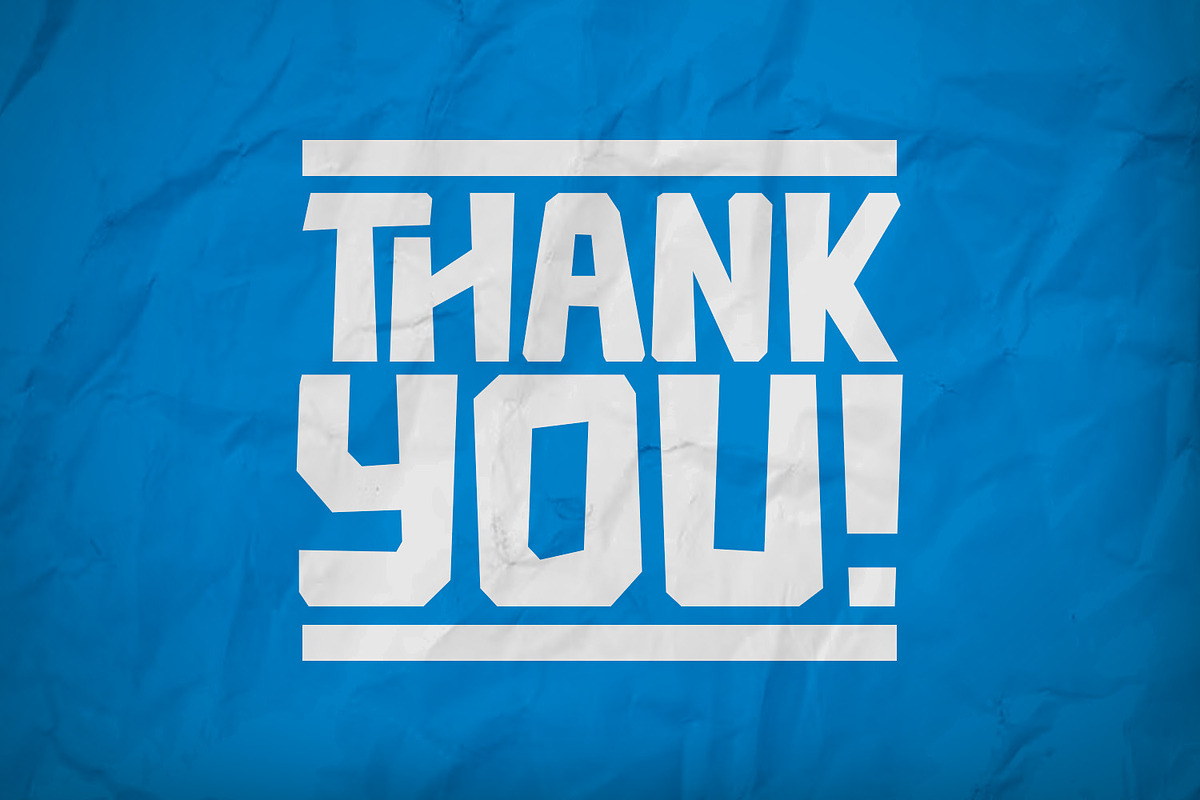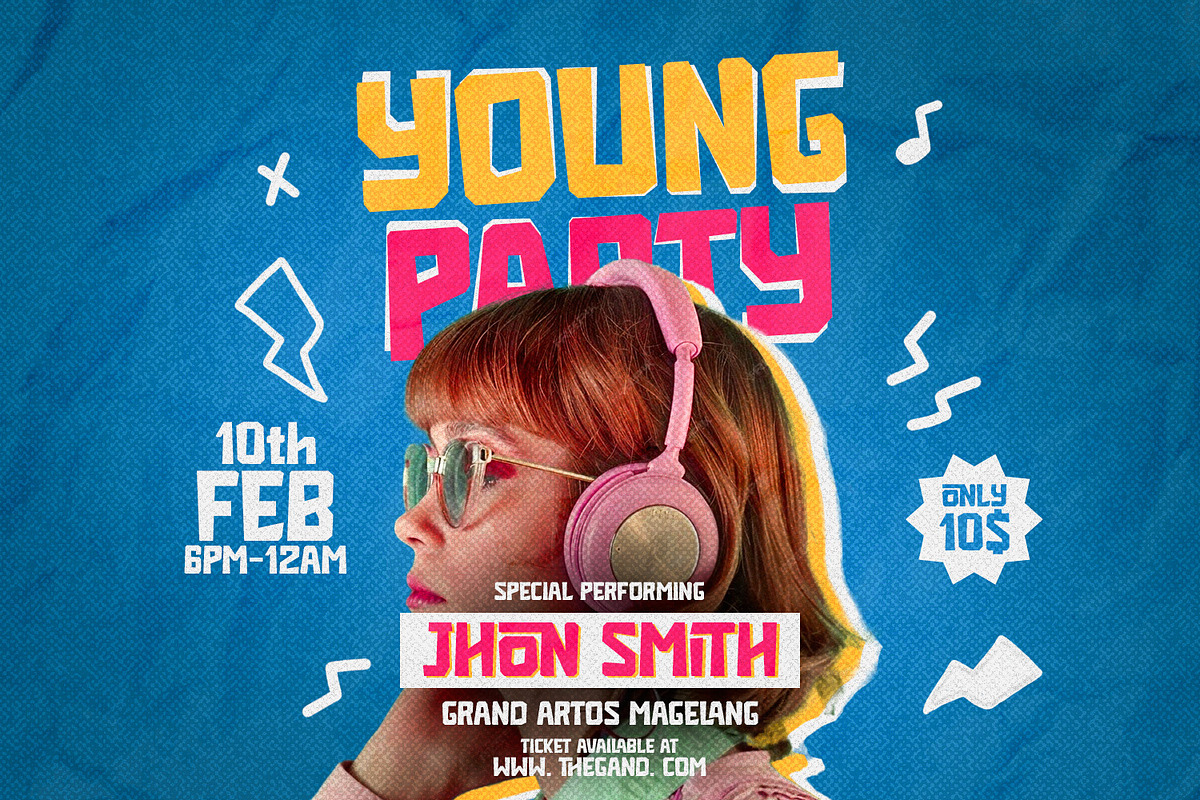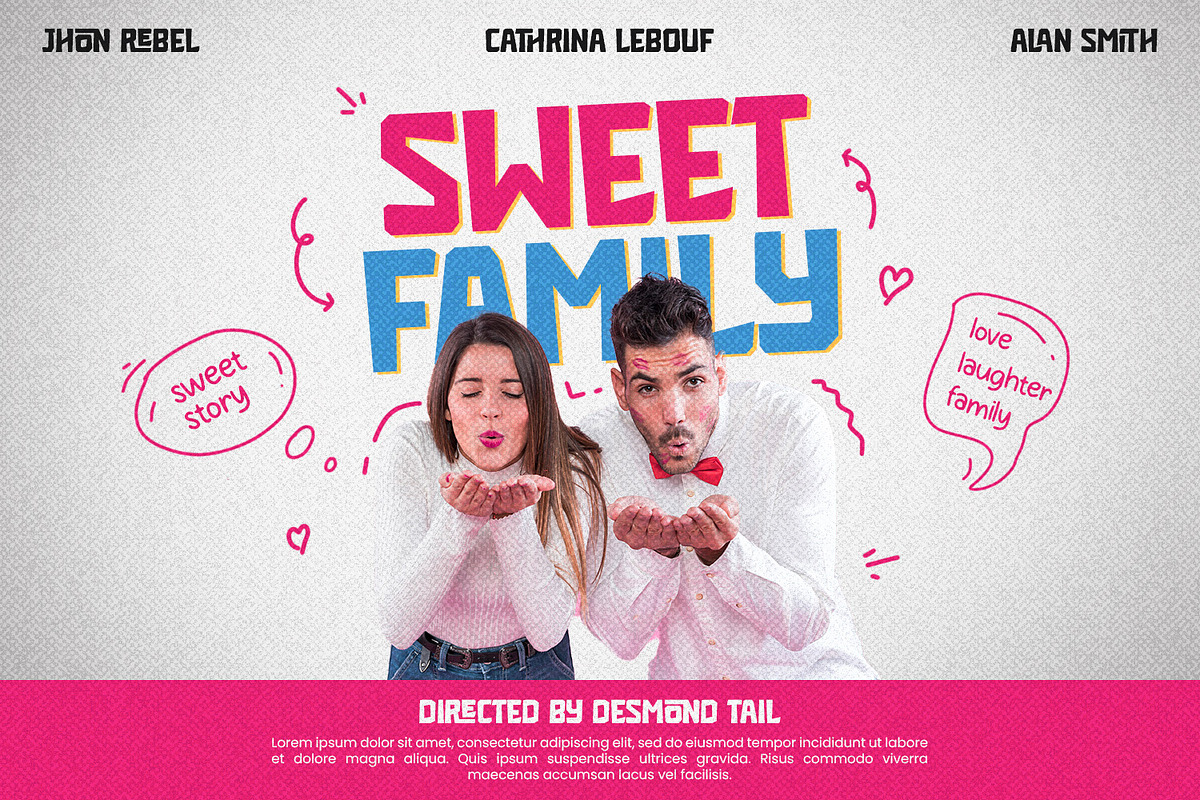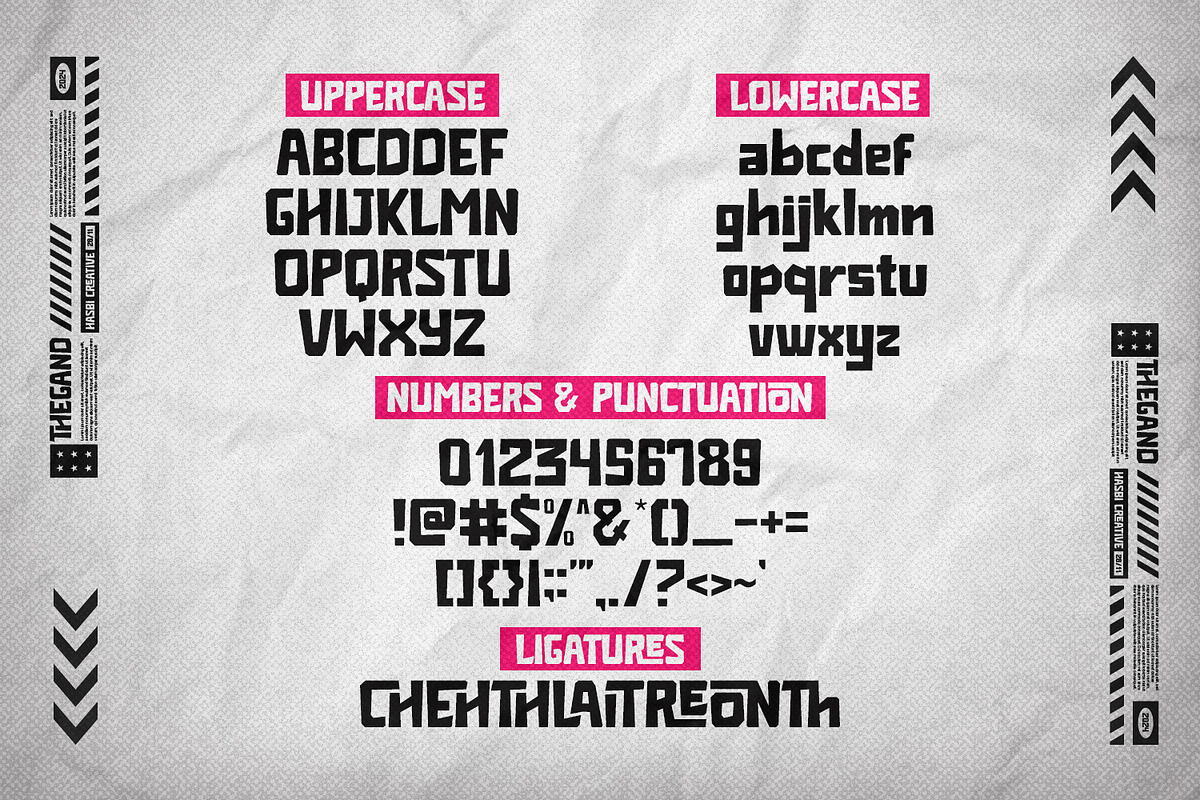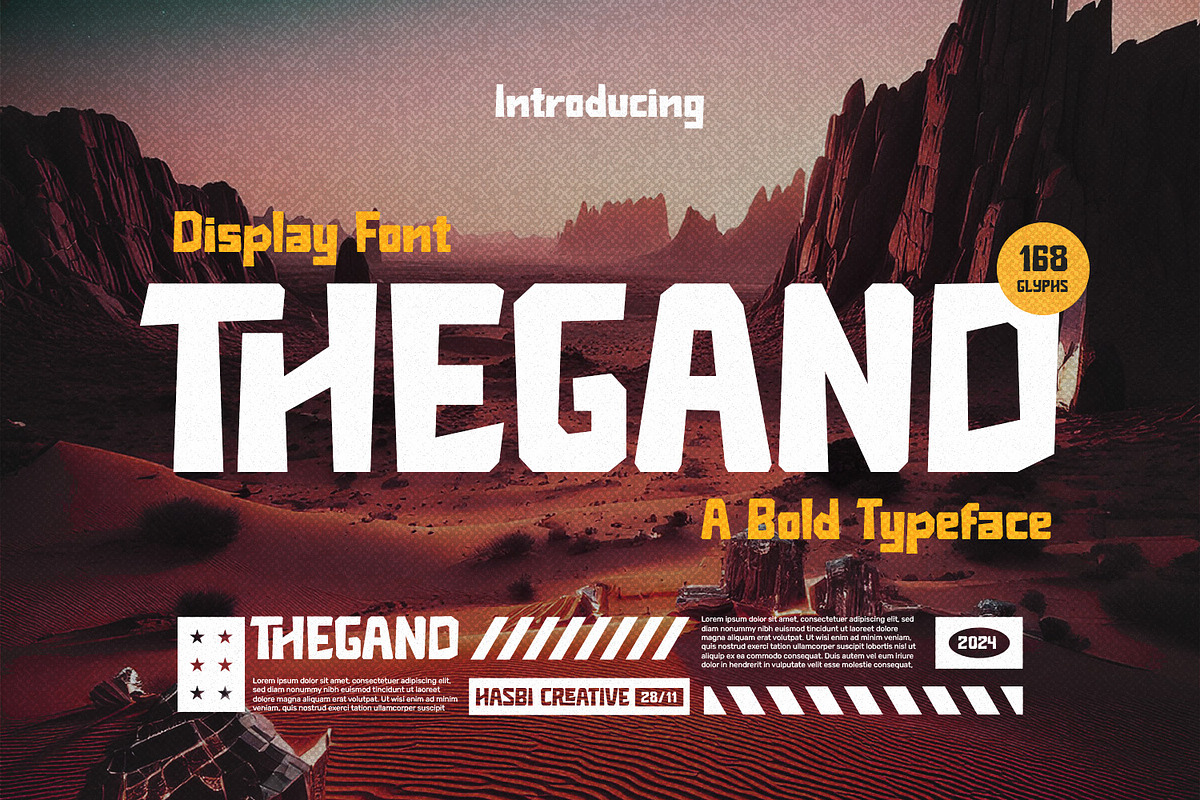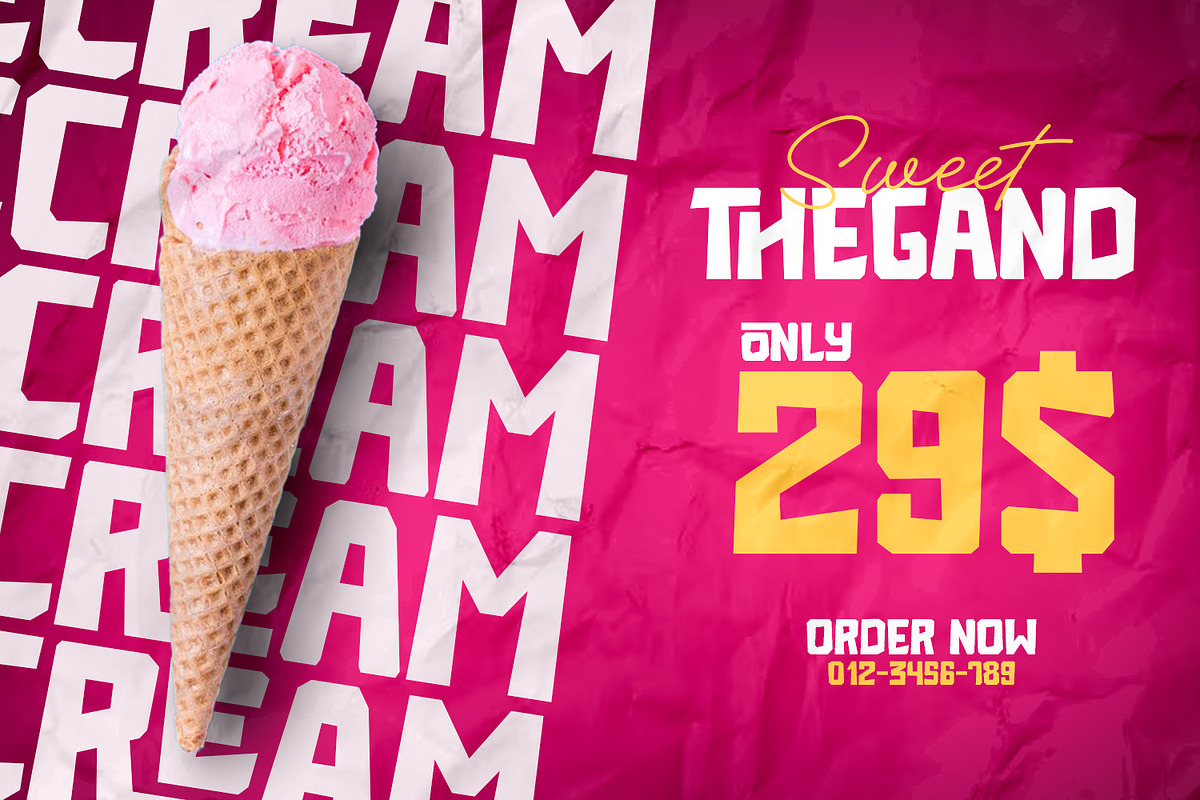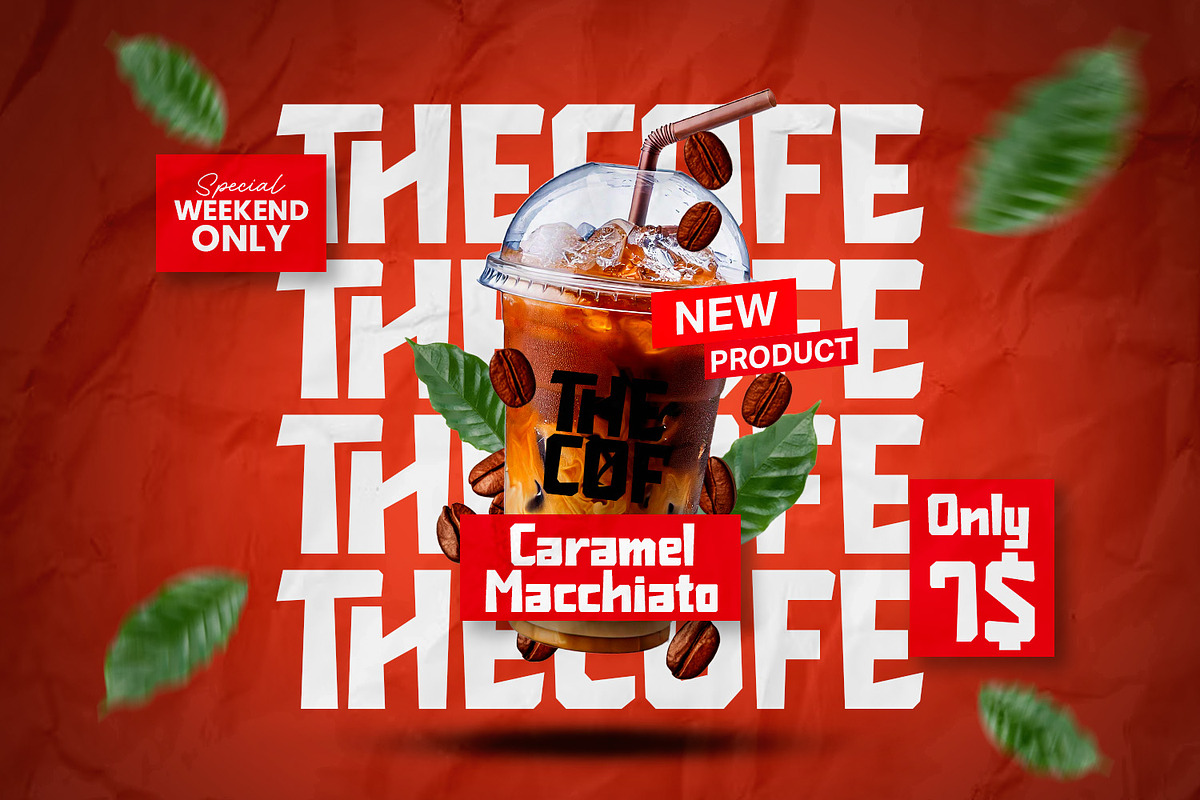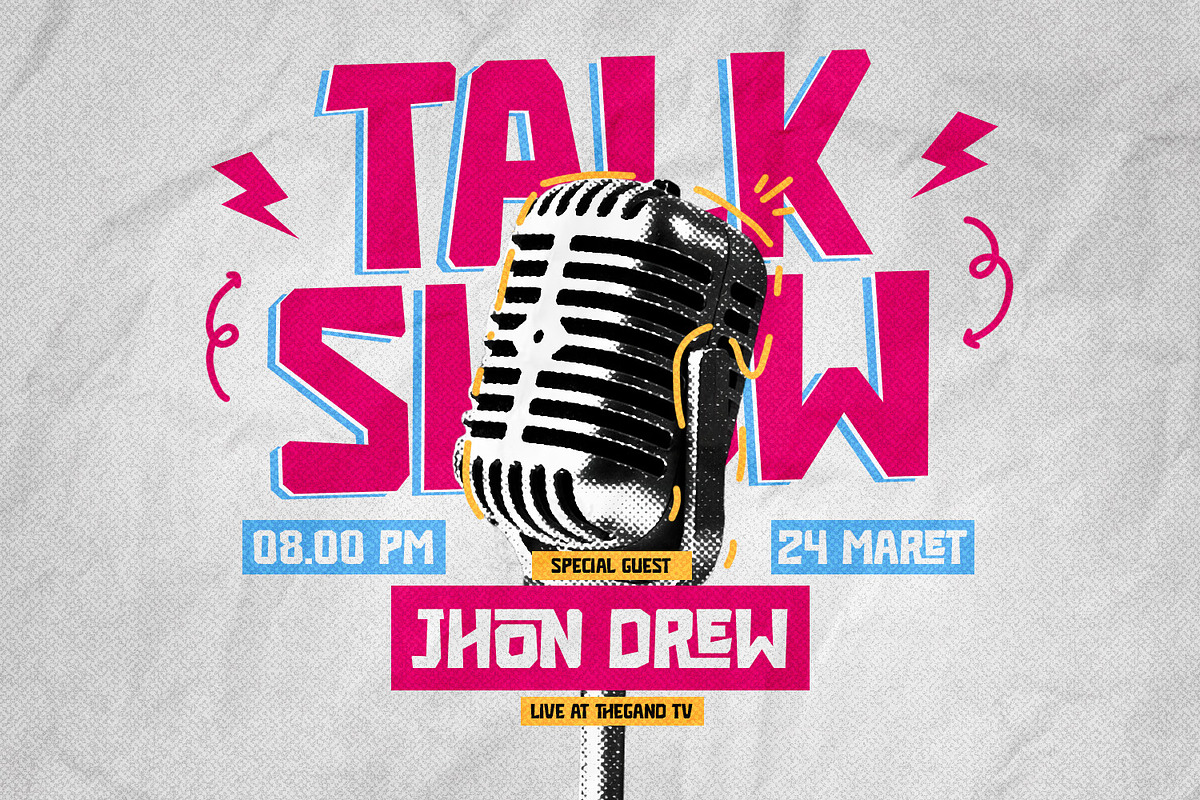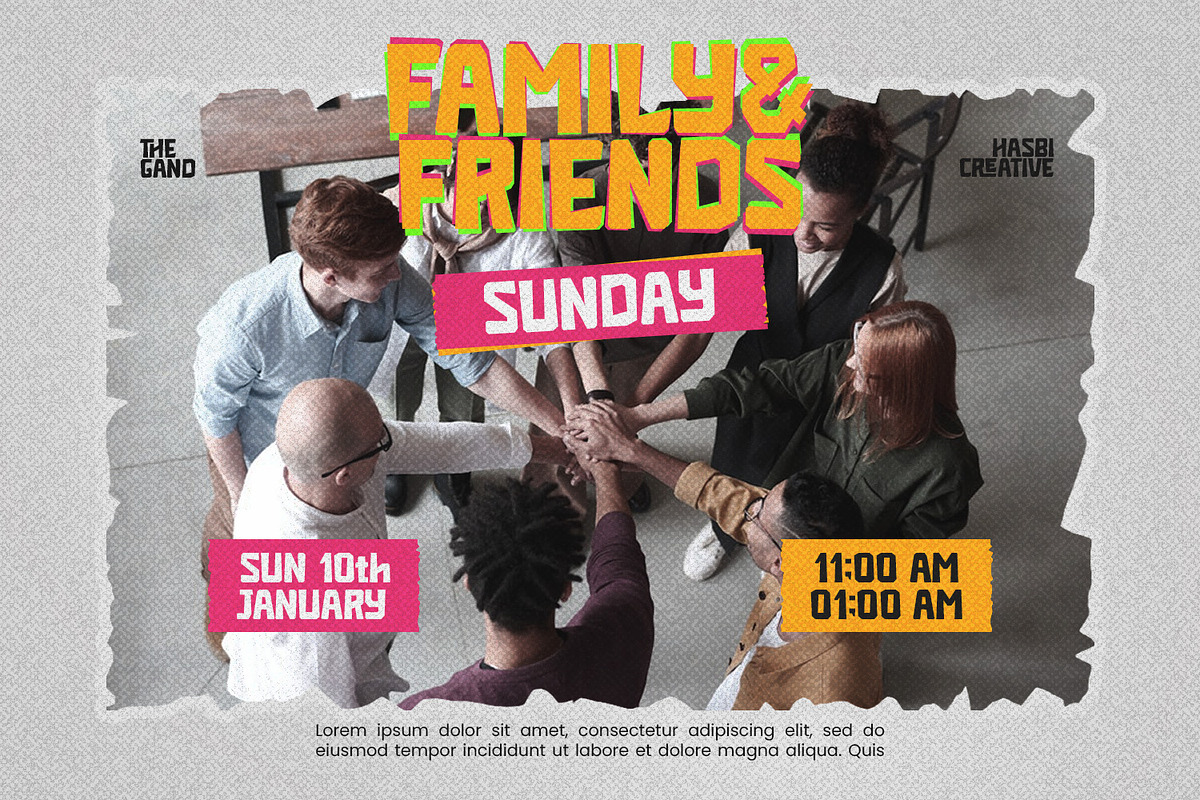
Thegand - Display
Thegand Display is a bold, abstract hand-drawn font that adds character and creativity to titles and headlines. Perfect for movie posters, social media, and branding across food, sports, and automotive industries, it delivers dynamic, expressive style with its unique, handcrafted strokes.
This font is:
- Unique and eye-catching
- Playful and fun
- Versatile
- Easy to use